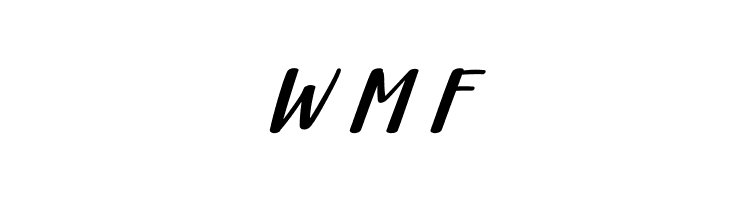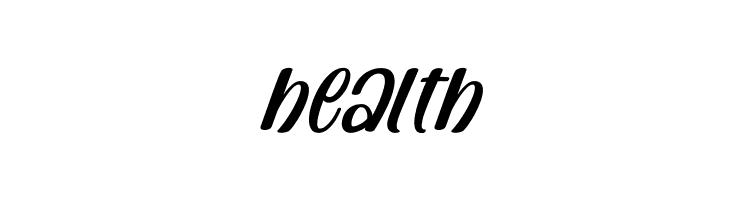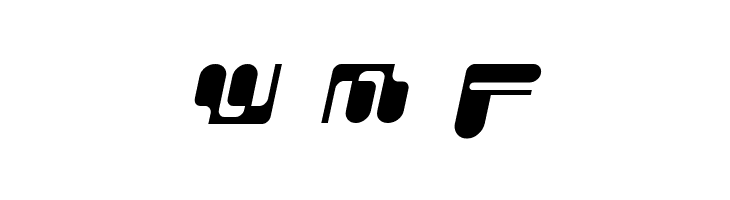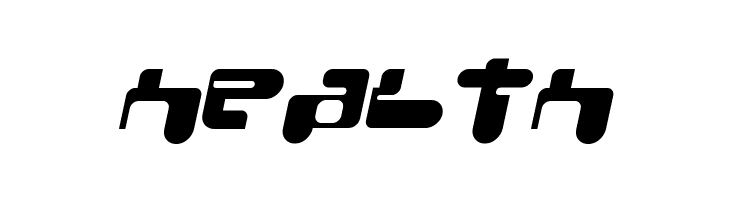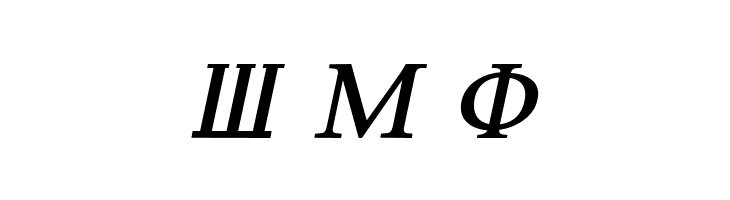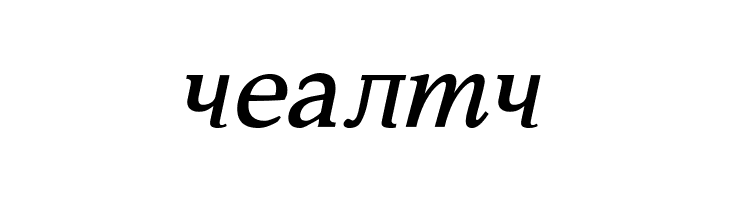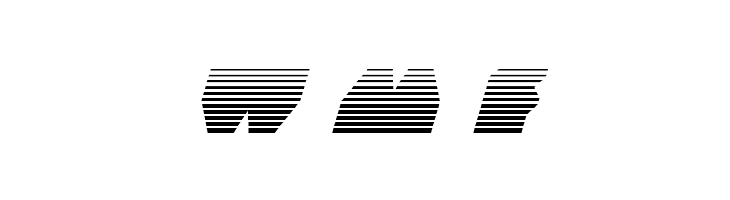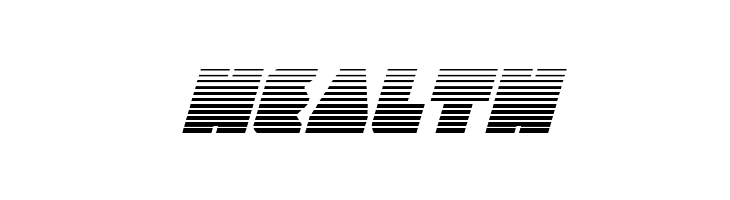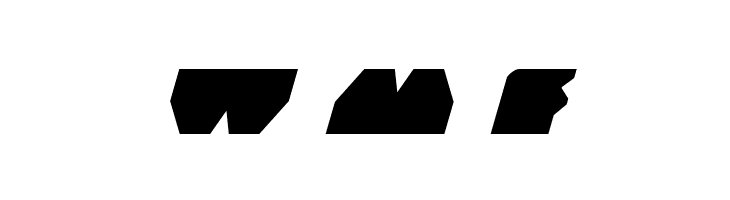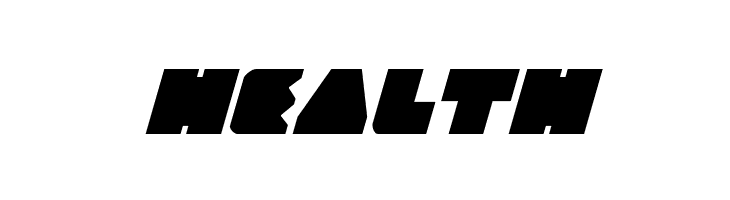
A bold, outlined font with a modern and playful style.
A bold, italic script font with dynamic and fluid characters.
A bold, italic font with a dynamic and modern style.
A bold, italicized font with a shadow effect, perfect for dynamic and impactful designs.
A bold, 3D italic font with a futuristic and dynamic style.
A bold, condensed italic font with a dynamic and modern style.
A bold, expanded, and italicized font with a dynamic and geometric style.
A bold, italicized font with a gradient effect created by horizontal lines, offering a dynamic and modern style.